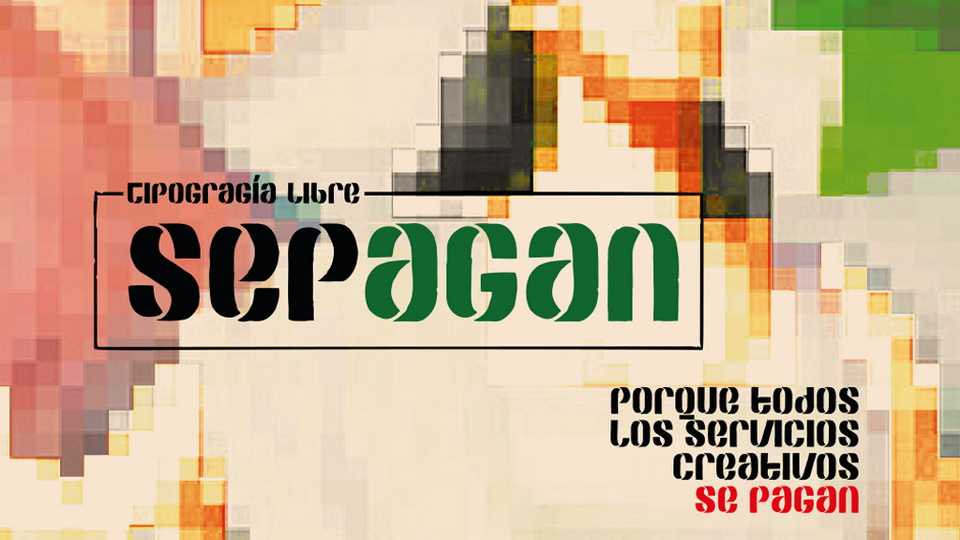
Download Sepagan font, a display typeface inspired by the legendary SEP logo. Sepagan has an outline that metaphorizes the crude and “sloppy” as an analogy of the tremendous discontent that the convocation aroused.